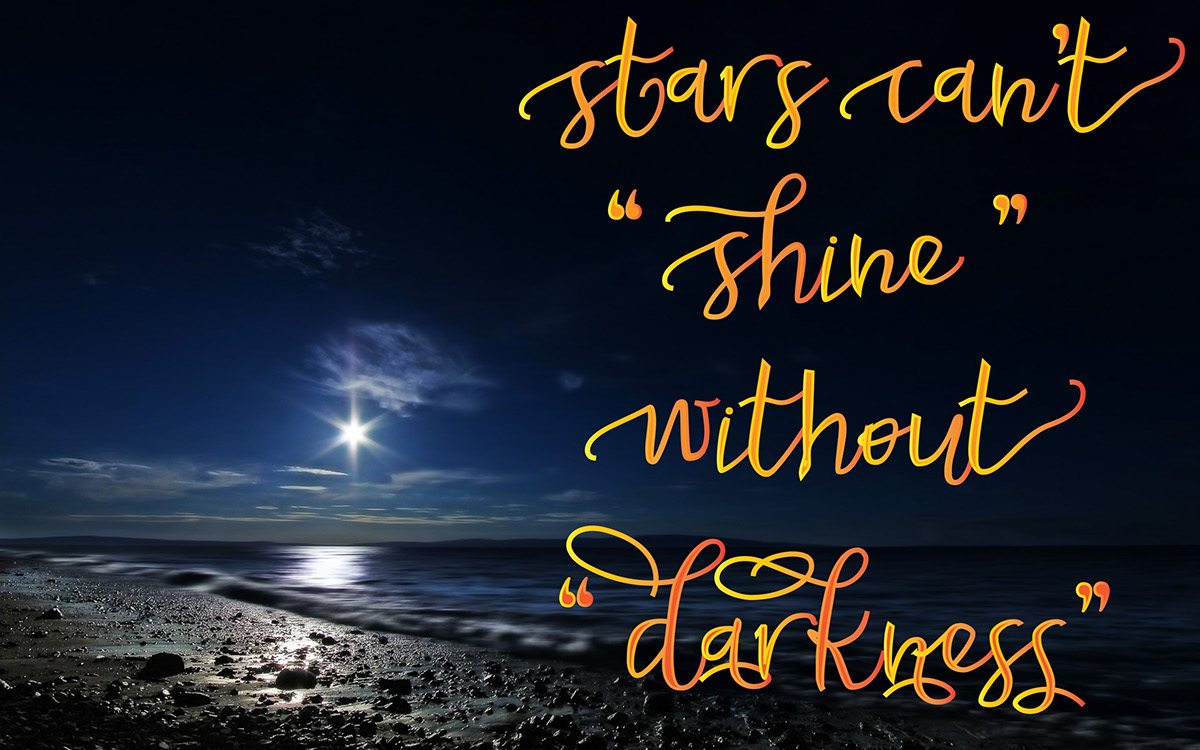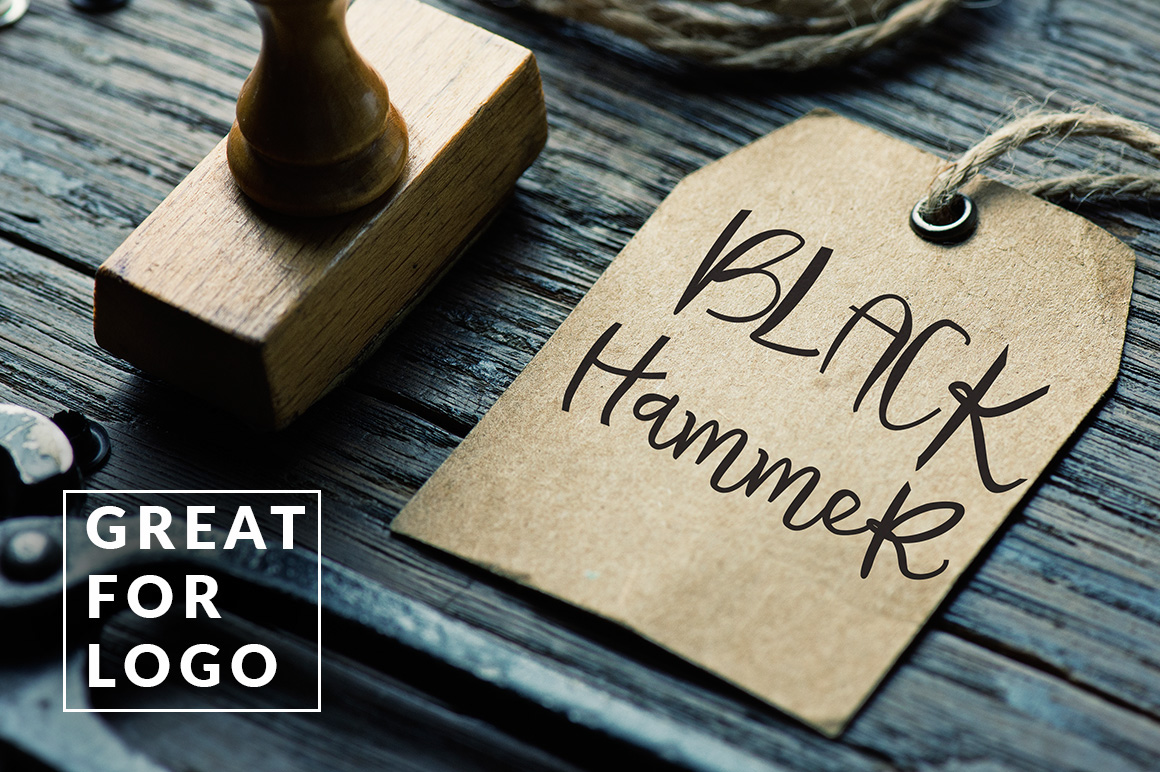
Lovely Fabulous
Lovely Fabulous Font
Lovely Fabulous Script is a stylish calligraphy font that features a varying baseline, smooth line, classic and elegant touch. Can be used for various purposes.such as headings, signature, logos, wedding invitation, t-shirt, letterhead, signage, lable, news, posters, badges etc.
Lovely Fabulous Script features 340 glyphs and 124 alternate characters. including initial and terminal letters, alternates, ligatures and multiple language support.